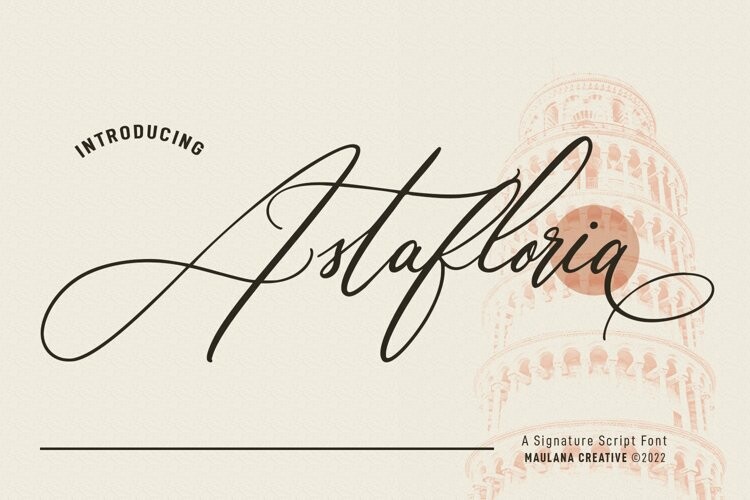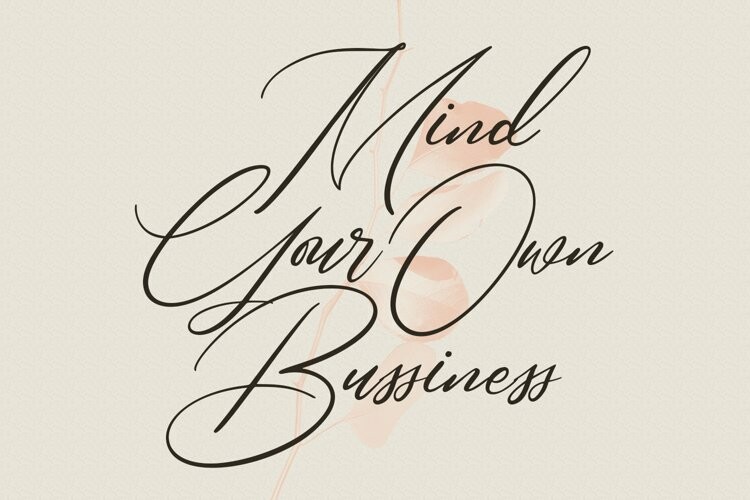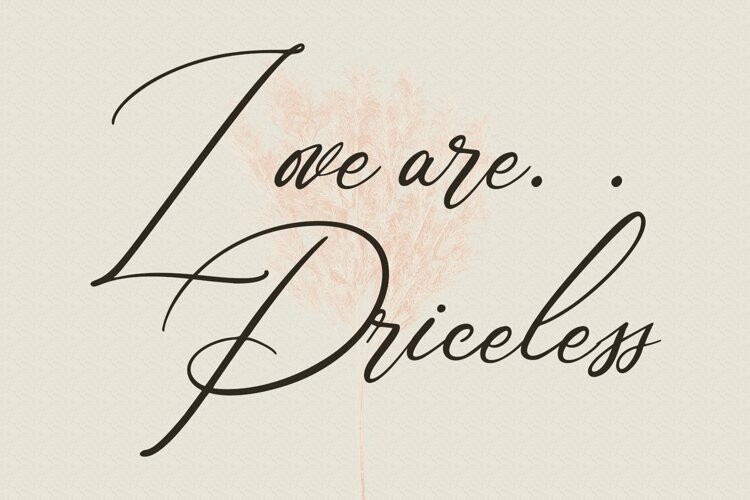
Astafloria Signature Script Font
Astafloria Signature Script FontAstafloria is a elegant beauty script font. With thin contrast stroke, fun character with a bit of ligatures and alternates. To give you an extra creative work. Astafloria font support multilingual more than 100+ language. This font is good for logo design, Social media, Movie Titles, Books Titles, a short text even a long text letter and good for your secondary text font with sans or serif. Make a stunning work with Astafloria font.